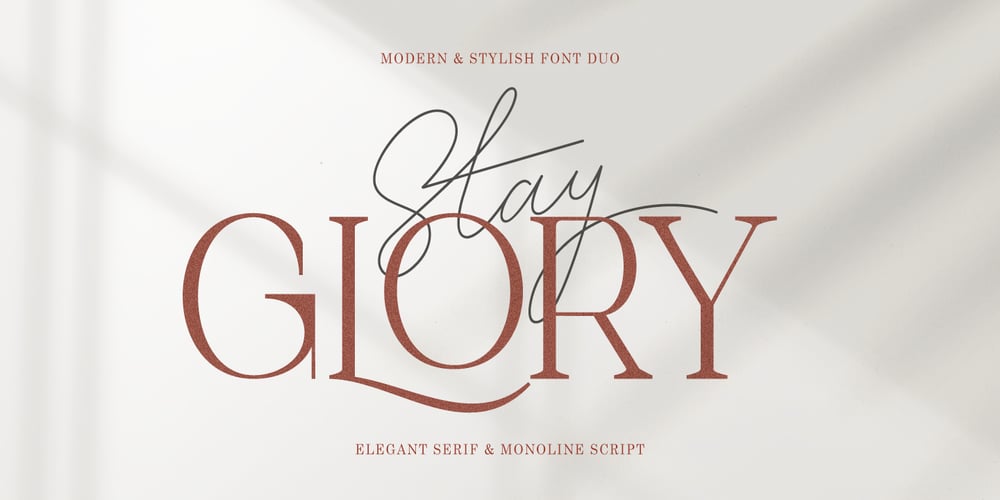
Stay Glory Script Font Family was designed by Rizki Andika and published by Letterfreshstudio. Stay Glory Script contains 2 styles and family package options. Stay Glory is a luxury font. which comes with a combination of modern and elegant fonts, namely serif and Monoline style. You can combine it to make beautiful typography. This hand display style makes it perfect for use in all your design projects be it logos, labels, packaging designs, blog titles, posters, wedding designs, social media posts, Instagram designs, card invitations, art quotes, home decor, book / cover titles , etc.Already matched up and ready to be used together for your next design!Here’s what’s included :Stay Glory Script Regular Stay Glory Serif Regular Language Support • Supports the following languages; English, French, Italian, Spanish, Portuguese, German, Swedish, Norwegian, Danish, Dutch, Finnish, Indonesian, Malay, Hungarian, Polish, Croatian, Turkish, Romanian, Czech, Latvian, Lithuanian, Slovak, Slovenian.I hope you enjoy this font. If you have questions, don’t hesitate to give me a message :)Thank you for your purchase!